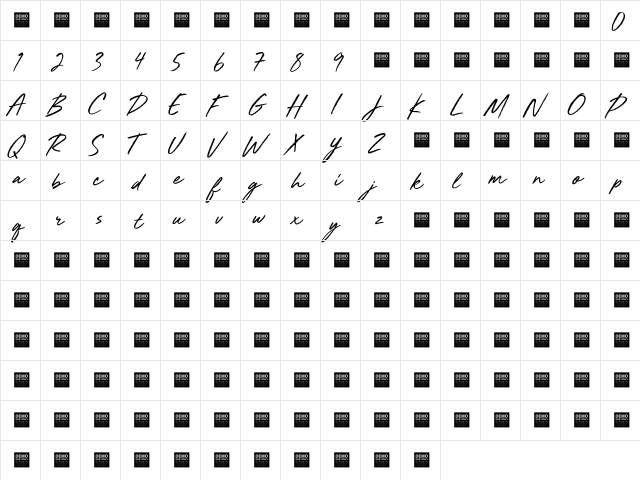
Mighty River - Demo Regular
Design Context for Mighty River - Demo Typeface
Mighty River - Demo is a composed and adaptable typeface that performs quietly and consistently across a wide range of design contexts.